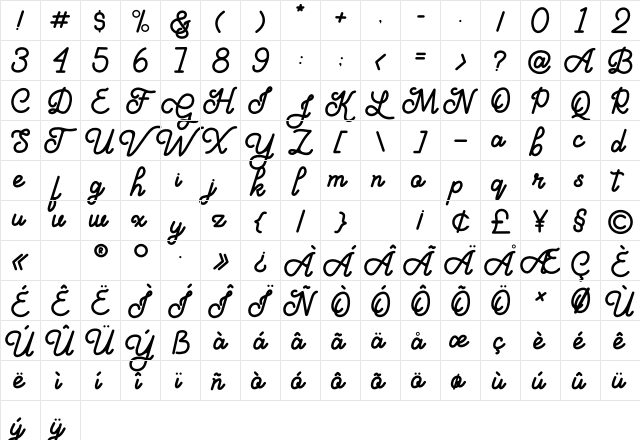
Aloritma Regular
| Foundry | eknoji |
| Designer | eknoji |
Design Context for Aloritma Typeface
Aloritma offers clean, dependable letterforms without strong stylistic allegiance, making it a practical choice for designers who need flexibility.